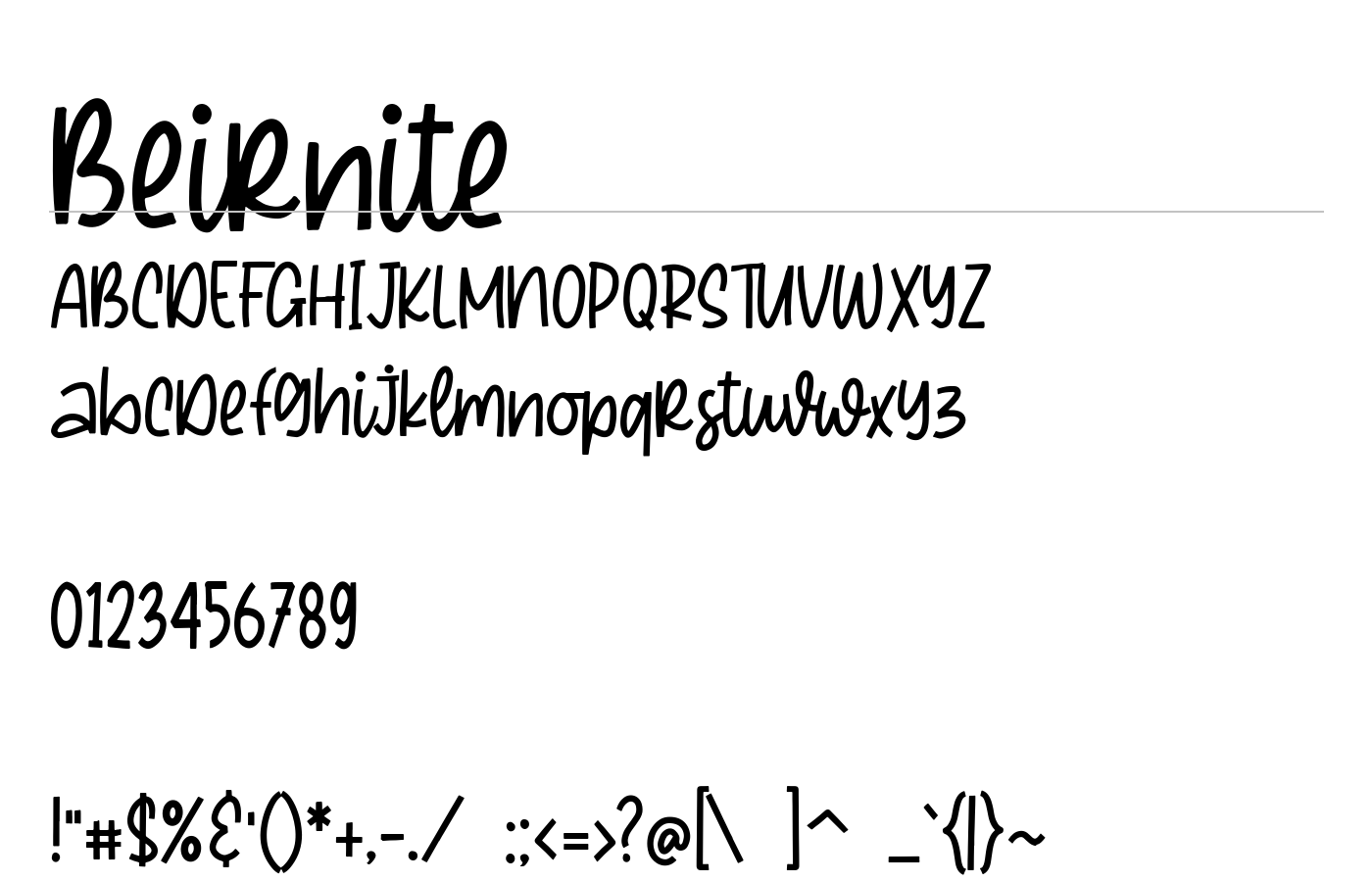
Beirnite is a playful, casual handwritten font featuring tall, narrow letterforms with a consistent medium weight and moderate x-height. Its quirky, slightly irregular shapes and single-story letters give it a friendly, approachable feel perfect for creative and informal designs. This font works well for invitations, greeting cards, and branding that seeks a personal, handwritten touch without sacrificing readability.
Beirnite Font
About Beirnite Font
| Font family | Beirnite Font |